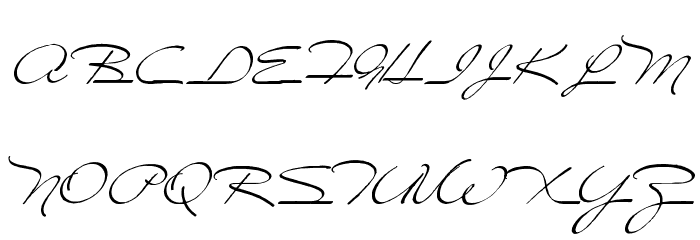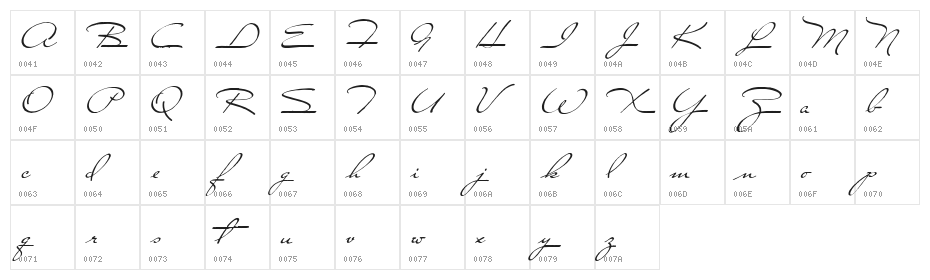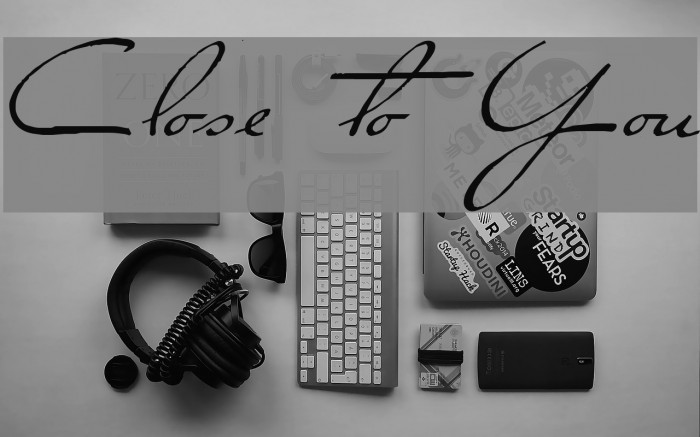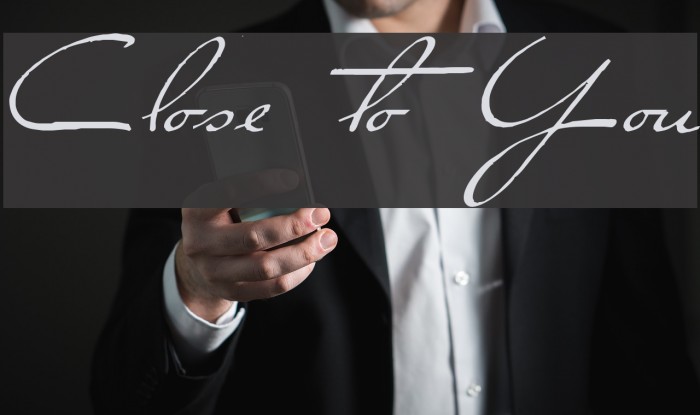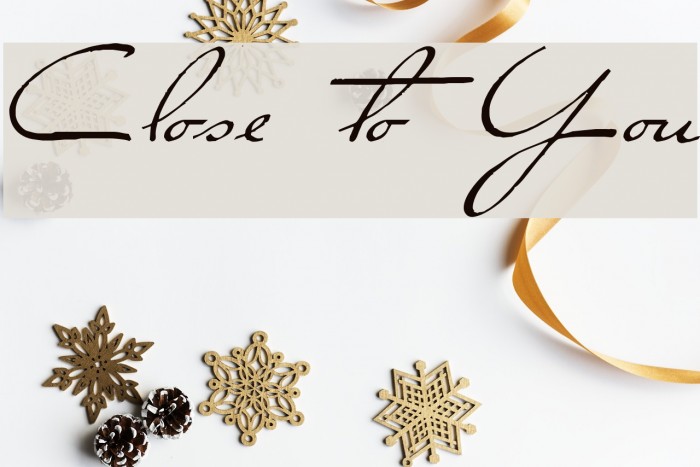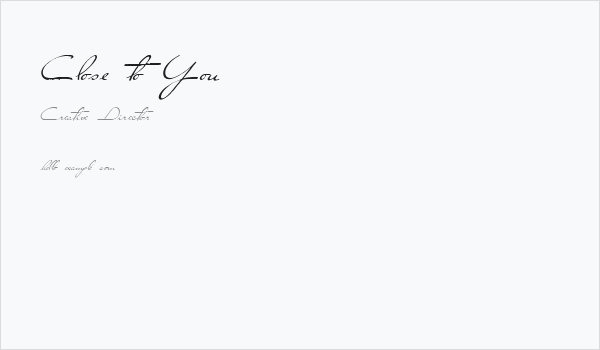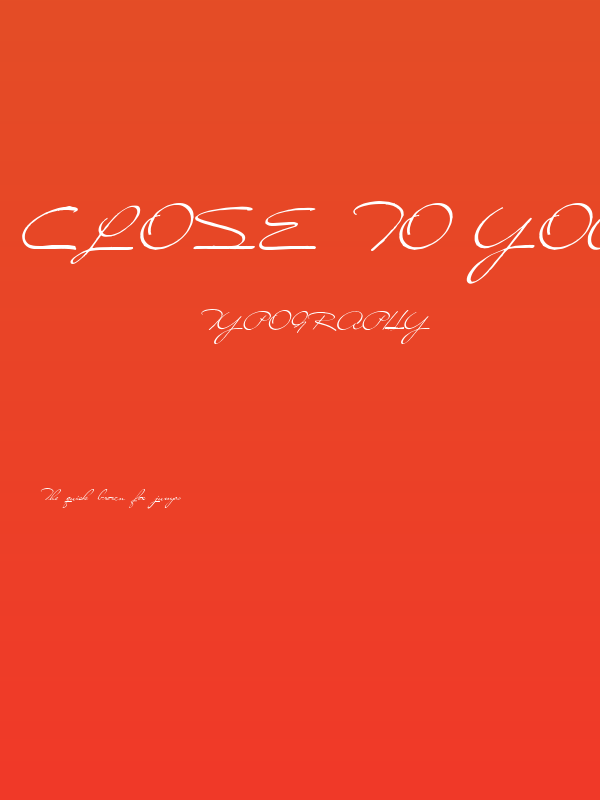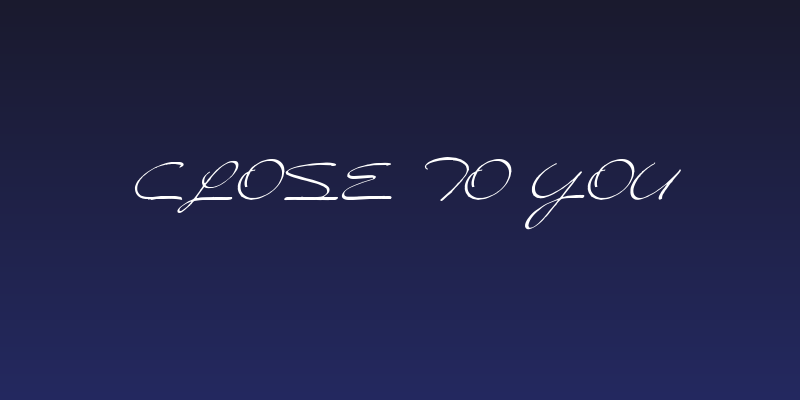
Close to You Font
Close to You Description
This elegant script font features a flowing, cursive style that mimics the fluidity of natural handwriting. The uppercase letters are elongated and graceful, with sweeping curves and delicate loops that give a sense of sophistication and charm. The lowercase letters maintain a consistent slant, enhancing the handwritten feel, while the strokes vary in thickness, adding a dynamic quality to the text. The font's overall appearance is both classic and refined, making it suitable for projects that require a touch of elegance and personal flair.
| Proposed Projects | Ideal for wedding invitations, personal branding, elegant stationery, and romantic quotes. |